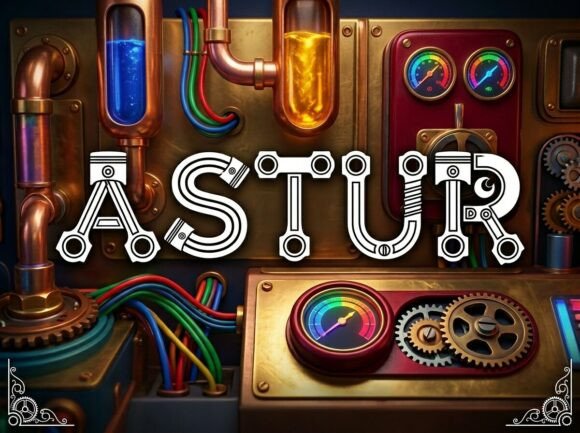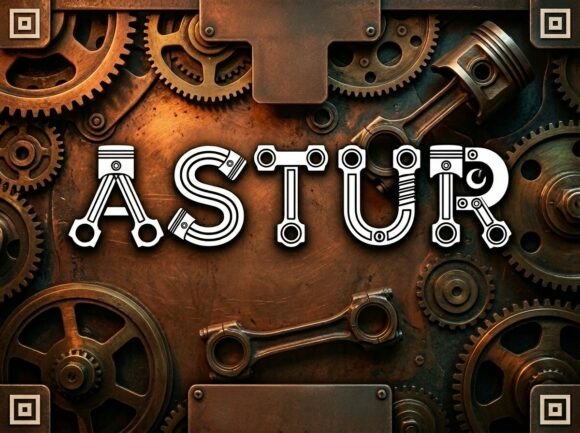
Meet Astur: The Ingenious Display Typeface for Mechanical Masterpieces
I’ll never forget the design struggle I faced while working on a steampunk-themed event poster for a client’s sci-fi book launch. I wanted a font that would capture the essence of industrial innovation and mechanical ingenuity, but everything I tried seemed to fall flat. That was until I stumbled upon Astur, a display typeface that embodies the “steampunk-and-industrial” soul. In this article, we’ll dive into the world of Astur and explore its features, uses, and alternatives.
A Personal Review of Astur
What I Love About Astur ✨
- ✅ Intricate technical details that add a touch of industrial sophistication to any design
- ✅ Rugged workshop personality that screams “handcrafted with love”
- ✅ Versatile and highly legible, even at large sizes
- ✅ Unique letterforms constructed from pistons, gears, connecting rods, and mechanical components
While Astur is an exceptional font, it’s not without its quirks. For instance:
- ⚠️ May not be suitable for body text due to its display-focused design
- Experiment with OpenType features, such as stylistic alternates and glyphs, to add visual interest
Exploring Alternatives to Astur
If you’re looking for similar fonts or alternatives to Astur, here are a few options:
- Mechanica: A futuristic sans-serif font with a strong industrial feel, perfect for tech and robotics branding
- Steamworks: A decorative font with a vintage steam-punk aesthetic, ideal for event posters and packaging
- Industrial Gothic: A bold, rugged font with a distressed texture, great for headlines and titles
- Cogtopolis: A sci-fi inspired font with intricate mechanical details, suitable for futuristic and cyberpunk designs
The Backstory of Astur
According to the designer, Astur was inspired by the works of steampunk pioneers and industrial innovators. The font’s creator spent countless hours researching and experimenting with mechanical components, resulting in a truly unique and captivating typeface.
| Font Name | Astur Font |
| Author | grifvixcolor |
| What is Astur best suited for? | Astur is perfect for independent custom garage branding, steampunk-themed event posters, artisanal tool packaging, and high-impact social media headers. |
| Is Astur suitable for body text? | No, Astur is a display-focused font and may not be legible for extended body text. |
| Are there any similar fonts to Astur? | Yes, some alternatives to Astur include Mechanica, Steamworks, Industrial Gothic, and Cogtopolis. |